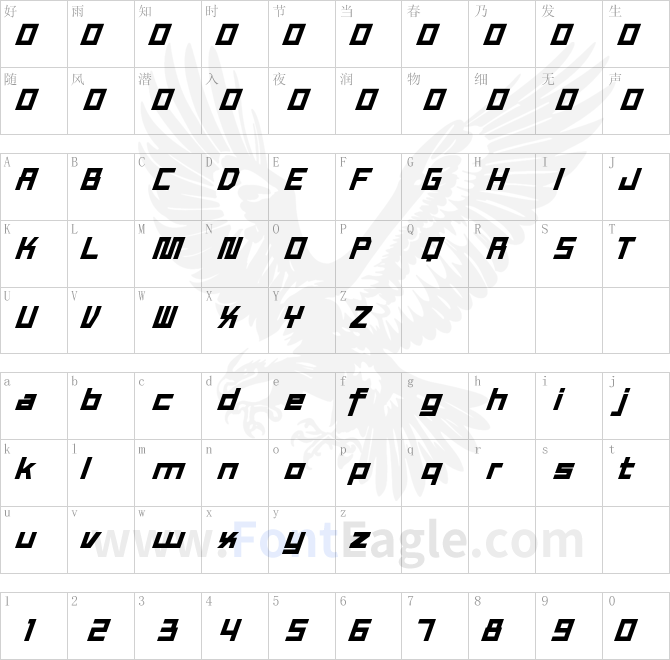
TEX-WORK is a great font, widely used in graphic design, single-page menu design, poster design and other fields, and is deeply loved by designers.TEX-WORK download.